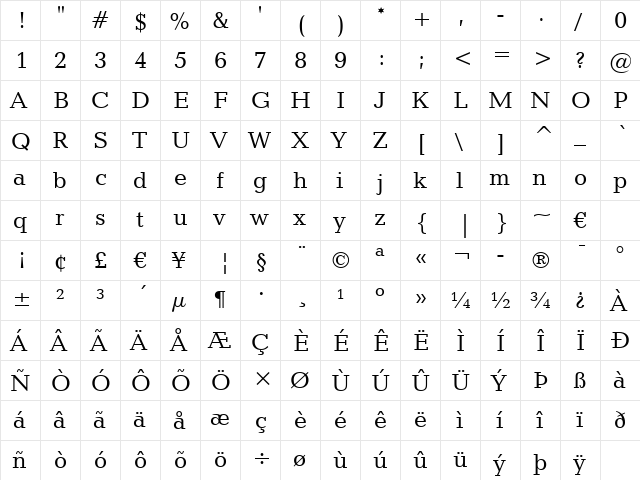
Candida BT Roman
Design Context for Candida BT Typeface
Candida BT offers clean, dependable letterforms without strong stylistic allegiance, making it a practical choice for designers who need flexibility.